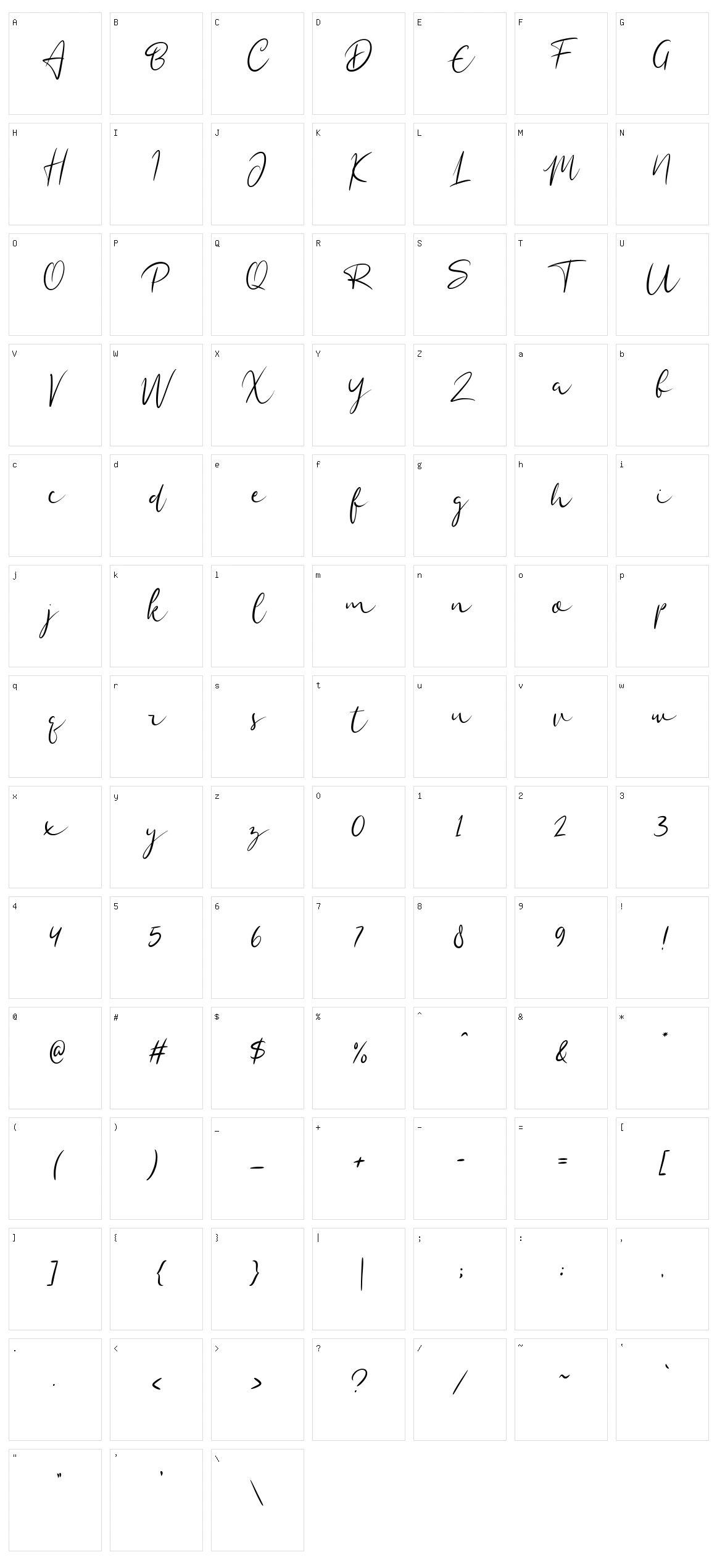
The free font Divalia is carefully designed by Kong Font, showcasing a thoughtful balance of creativity and usability and falls under the Script font style. When you download the ZIP file, it contains only 474.38 KB of font files, making it lightweight and quick to download. Please review the license details below to understand permitted usage and distribution rights. If license information is not available, we recommend using this font for personal projects only or contacting the author directly for commercial usage permissions.